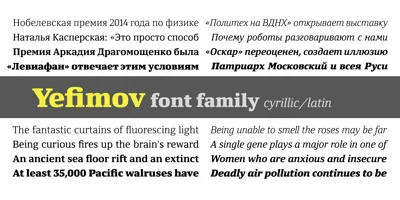
Yefimov Serif Font
Yefimov Serif Font is masterfully designed for Russian literary publications, Eastern European cultural materials, Slavic academic texts, heritage preservation documents, international scholarly journals, multilingual editorial layouts, cultural research projects, and sophisticated intellectual communications. This distinguished typeface excels in environments requiring Slavic authenticity and scholarly elegance, making it perfect for academic institutions, cultural organizations, publishing houses, and any business needing to communicate Eastern European heritage and intellectual sophistication through refined typography.
What makes Yefimov Serif Font so exciting is its exceptional blend of traditional Slavic typographic principles with contemporary scholarly functionality that honors Eastern European literary traditions while ensuring modern academic usability. The font features carefully balanced letterforms with Slavic design influences and scholarly proportions that reflect the rich heritage of Russian typography and the intellectual depth of Eastern European academic culture. Its scholarly construction and cultural character make it incredibly valuable for brands wanting to communicate intellectual authority, cultural authenticity, and academic excellence while serving Slavic-speaking communities and international scholarly environments.
Yefimov Serif Font typically includes comprehensive character sets supporting Cyrillic scripts with multiple weights such as Light, Regular, Medium, and Bold, often accompanied by scholarly Italic variations optimized for academic applications. The font family frequently features extended language support including Russian, Ukrainian, Bulgarian, and other Slavic languages with proper diacritical marks essential for authentic multilingual typography. Each weight maintains the font's distinctive cultural character while offering different levels of scholarly emphasis, providing designers with complete typographic solutions for Eastern European academic and cultural communication needs.
Academic professionals will find that Yefimov Serif Font delivers superior performance in both traditional scholarly applications and contemporary international materials requiring Slavic linguistic accuracy. The font's meticulously crafted character set includes culturally appropriate letterforms, Cyrillic symbols, and academic elements essential for Eastern European publishing, scholarly materials, and multilingual educational communications. Its refined design makes it particularly effective for universities, cultural institutions, academic publishers, and research-oriented marketing campaigns requiring authentic Slavic presence.
The careful attention to Slavic typographic proportions and scholarly spacing ensures that Yefimov Serif Font maintains cultural authenticity while delivering excellent readability across all academic applications. Its heritage-inspired design language makes it exceptionally suitable for Eastern European studies, academic publishing, cultural preservation, and international scholarly communications. The font's authoritative appearance creates strong intellectual credibility while remaining highly functional across different contexts from traditional academic texts to contemporary multilingual publications.
For designers seeking a typeface that embodies Slavic scholarly heritage with cultural authenticity, Yefimov Serif Font represents an essential choice that will honor any project with its distinctive tradition and Eastern European character.